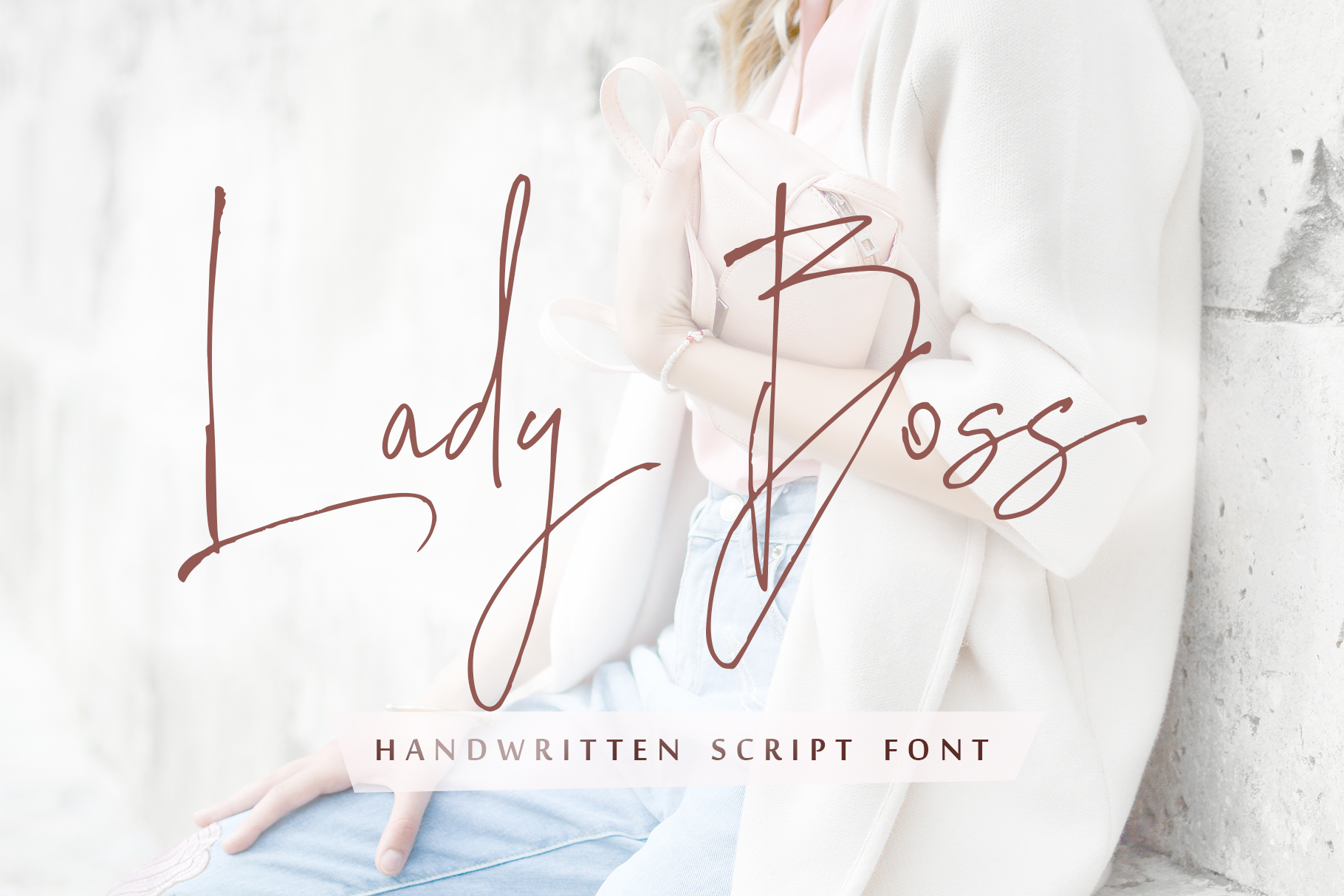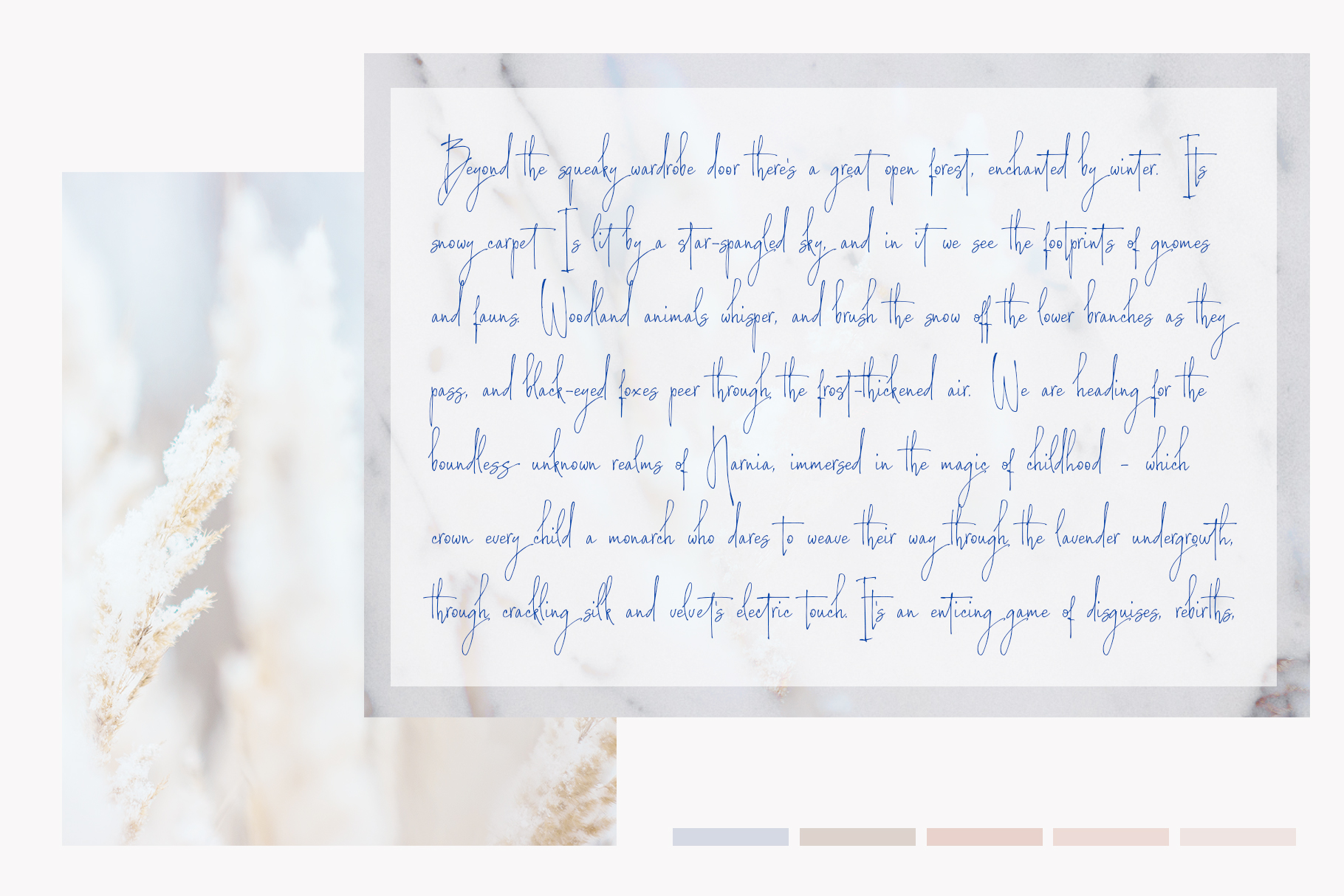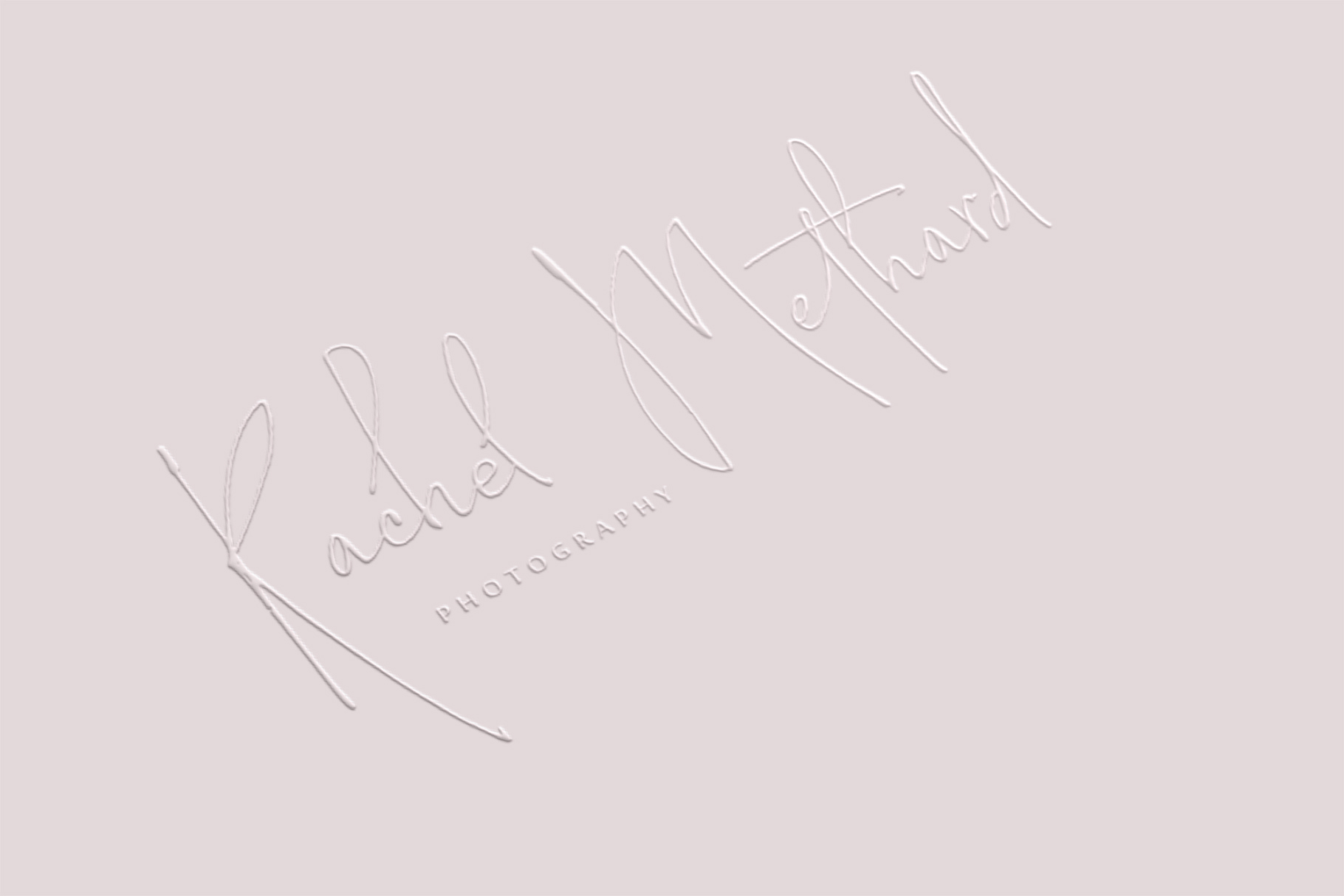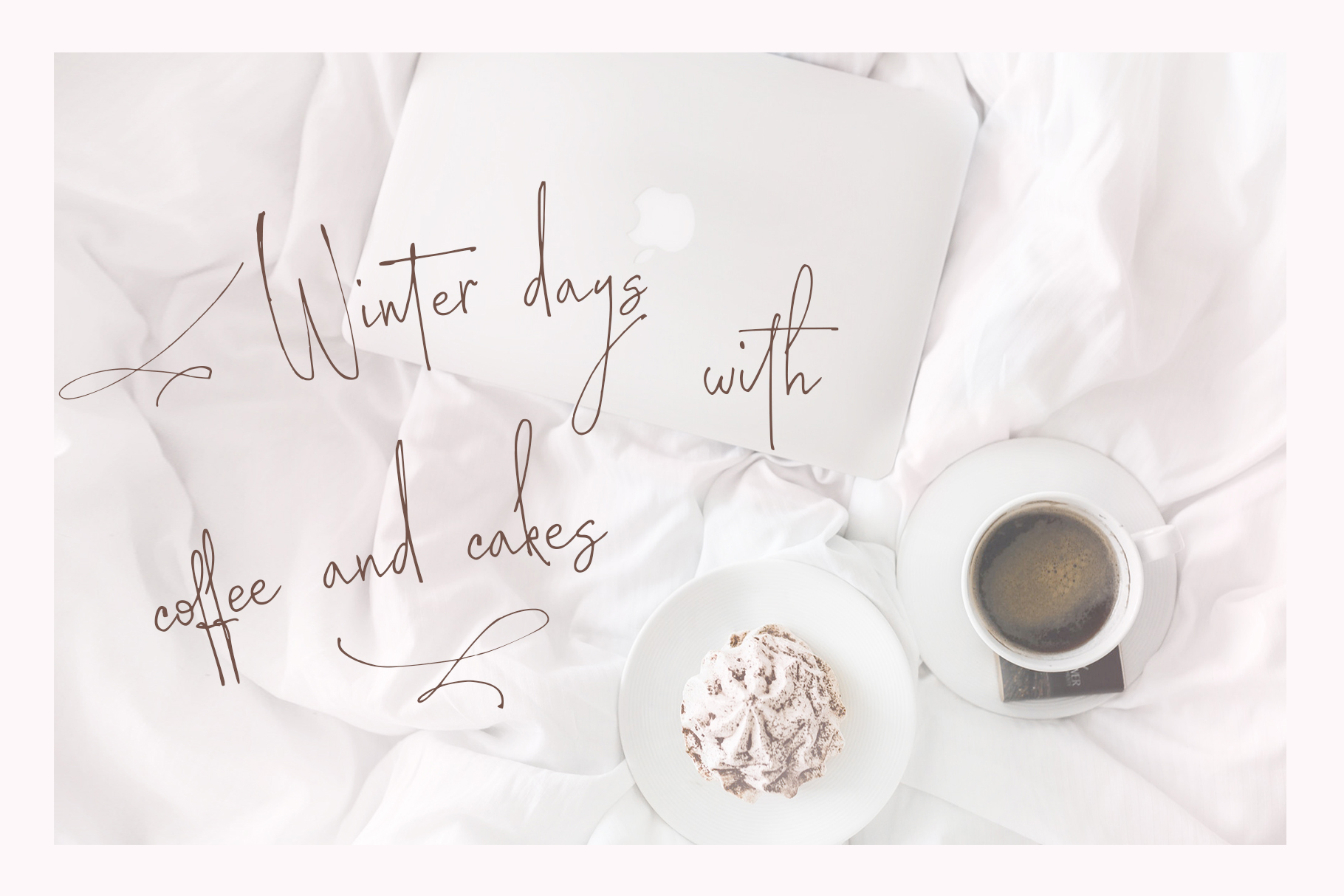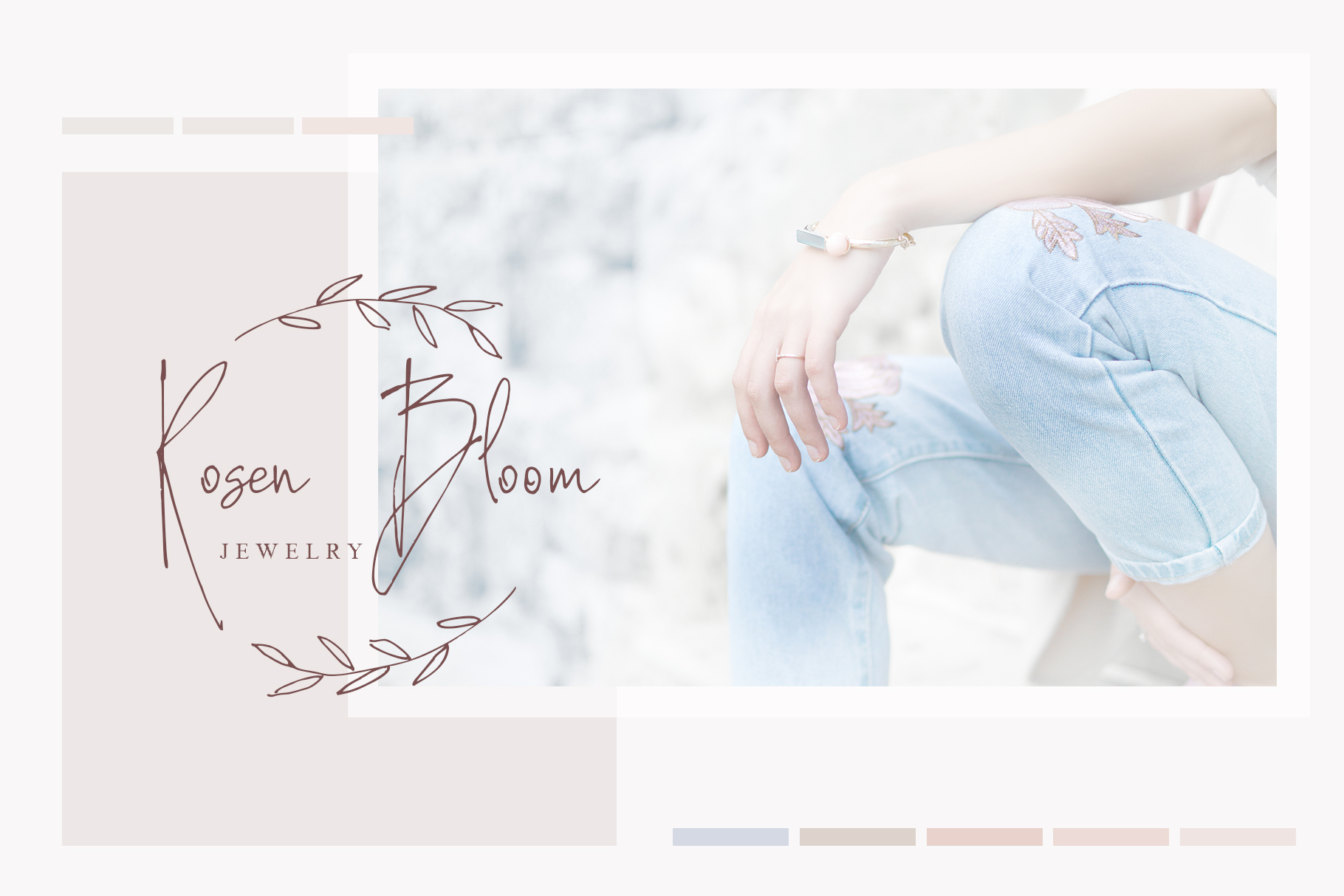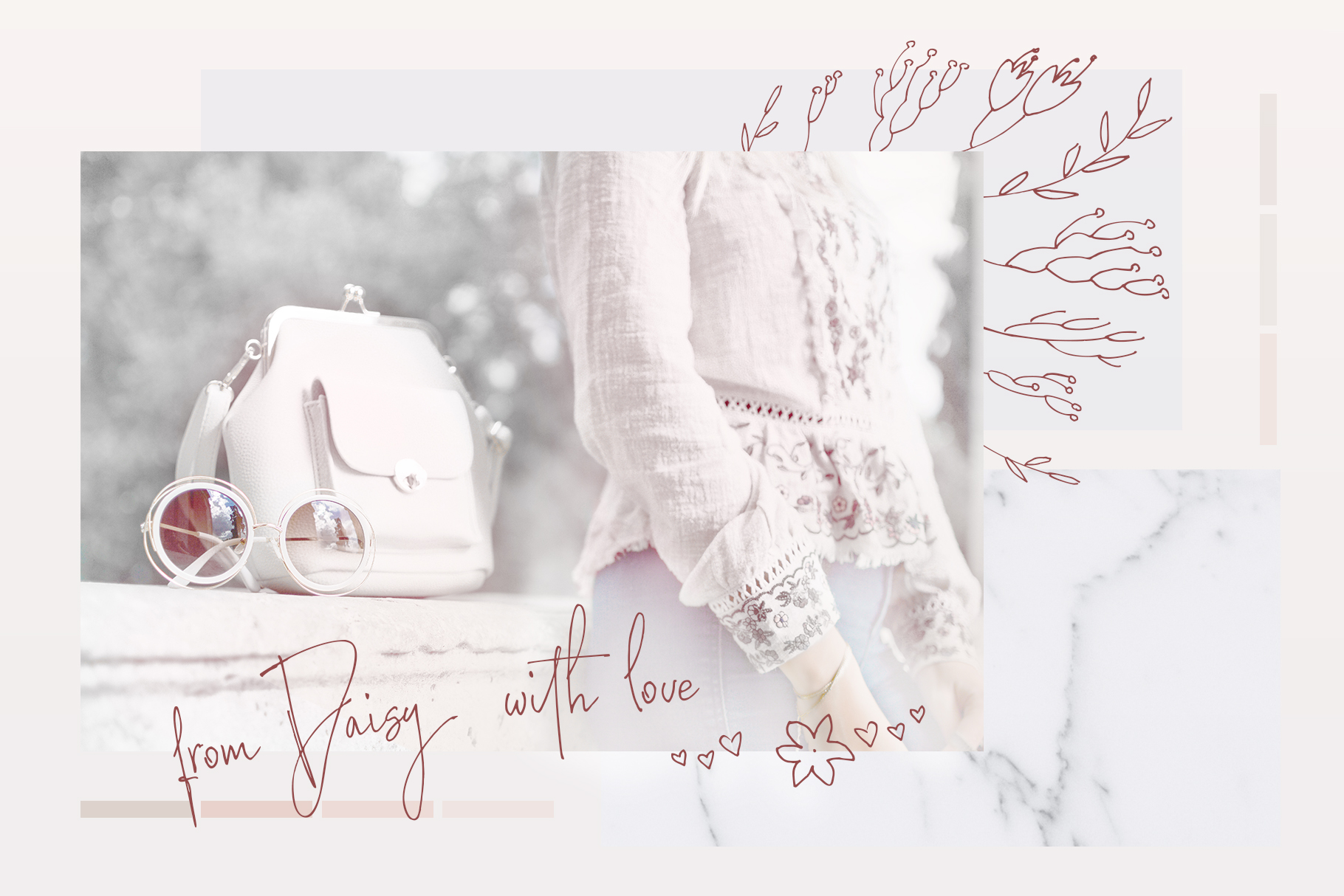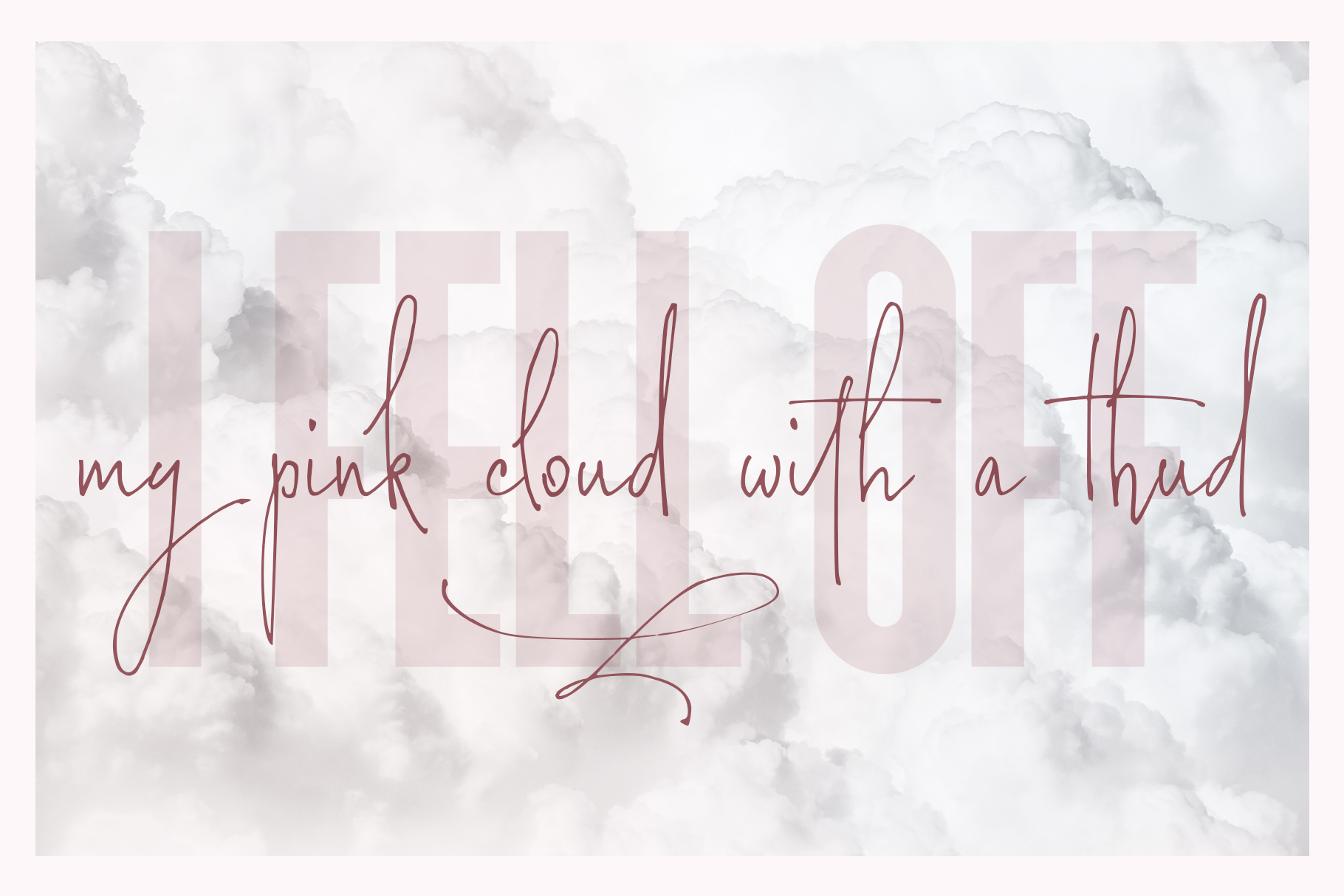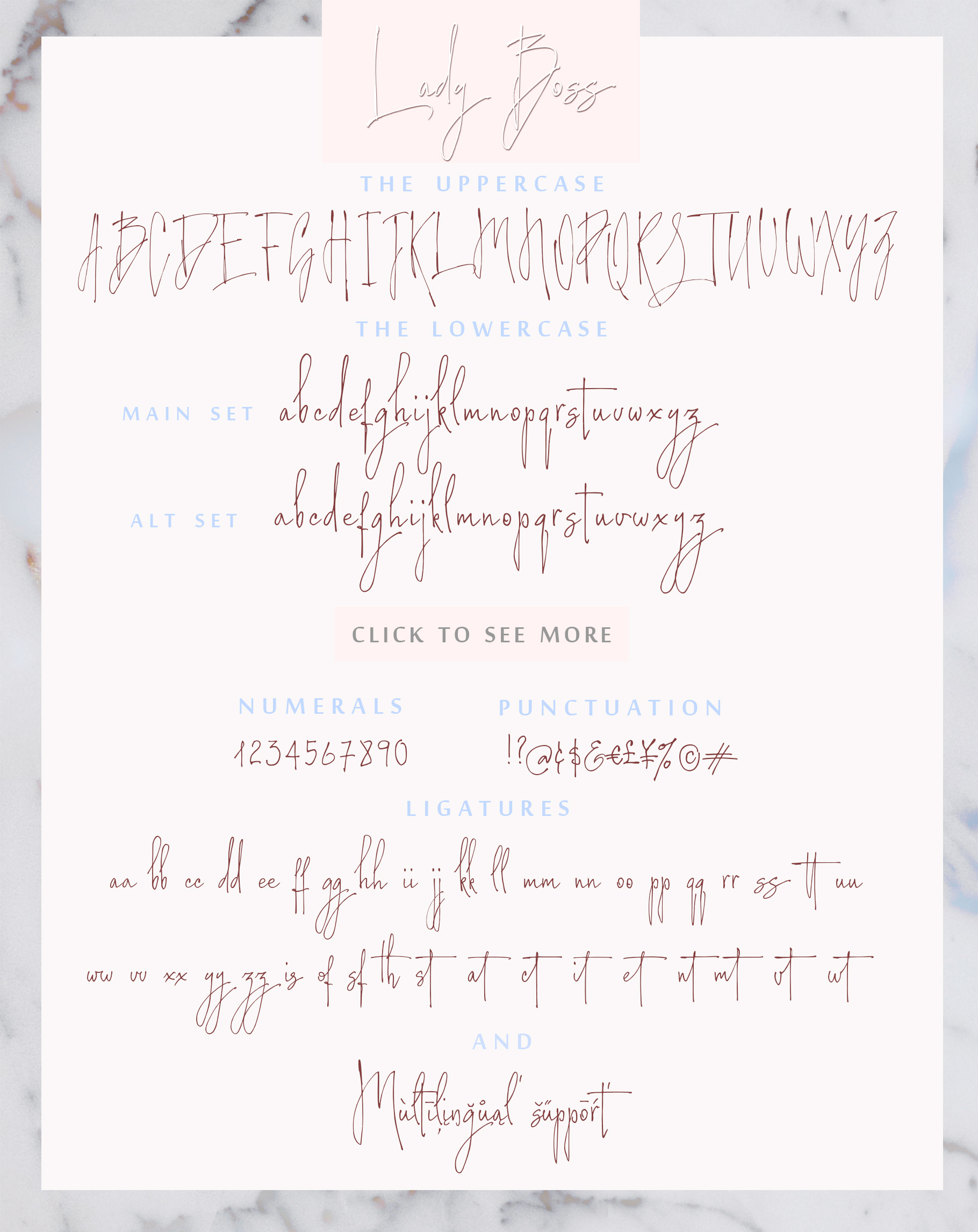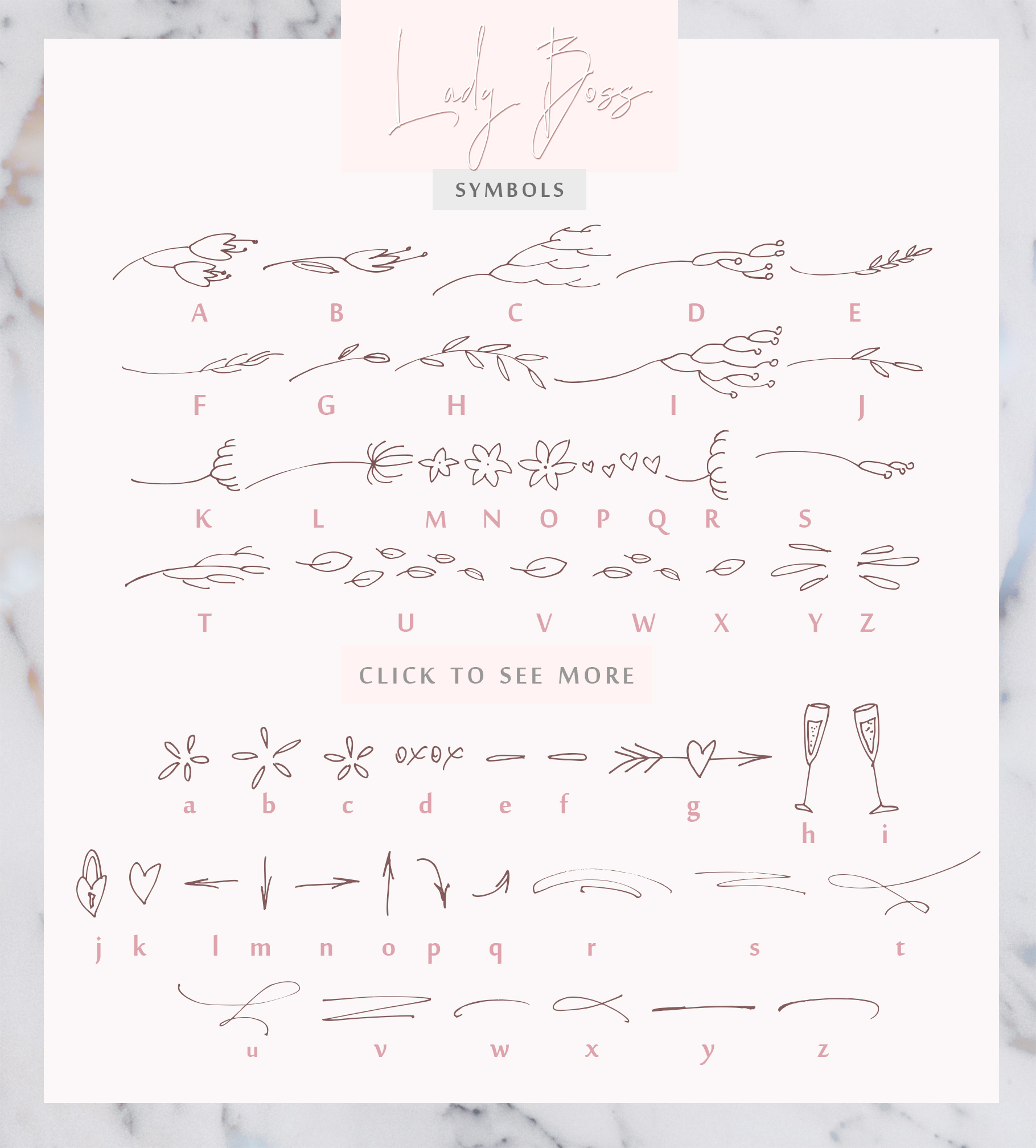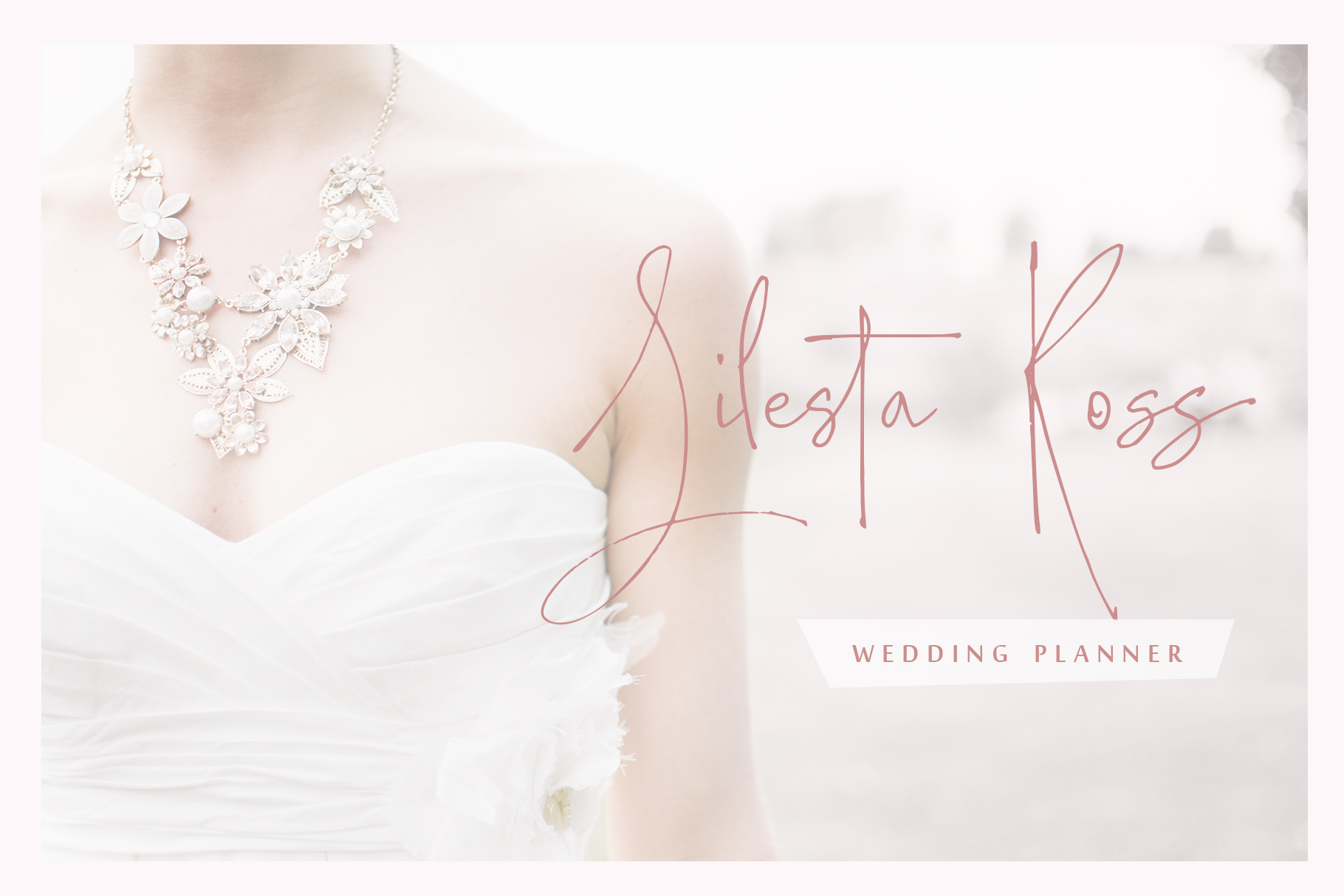
Lady Boss Font
About Lady Boss Font
Just a few days ago it was cold, but today it feels like spring is almost here. With these tender feelings, I want to present you Lady Boss emerges as a delicate, feminine, modern handwritten font. Its handwritten style makes it perfect for use in all your design projects.